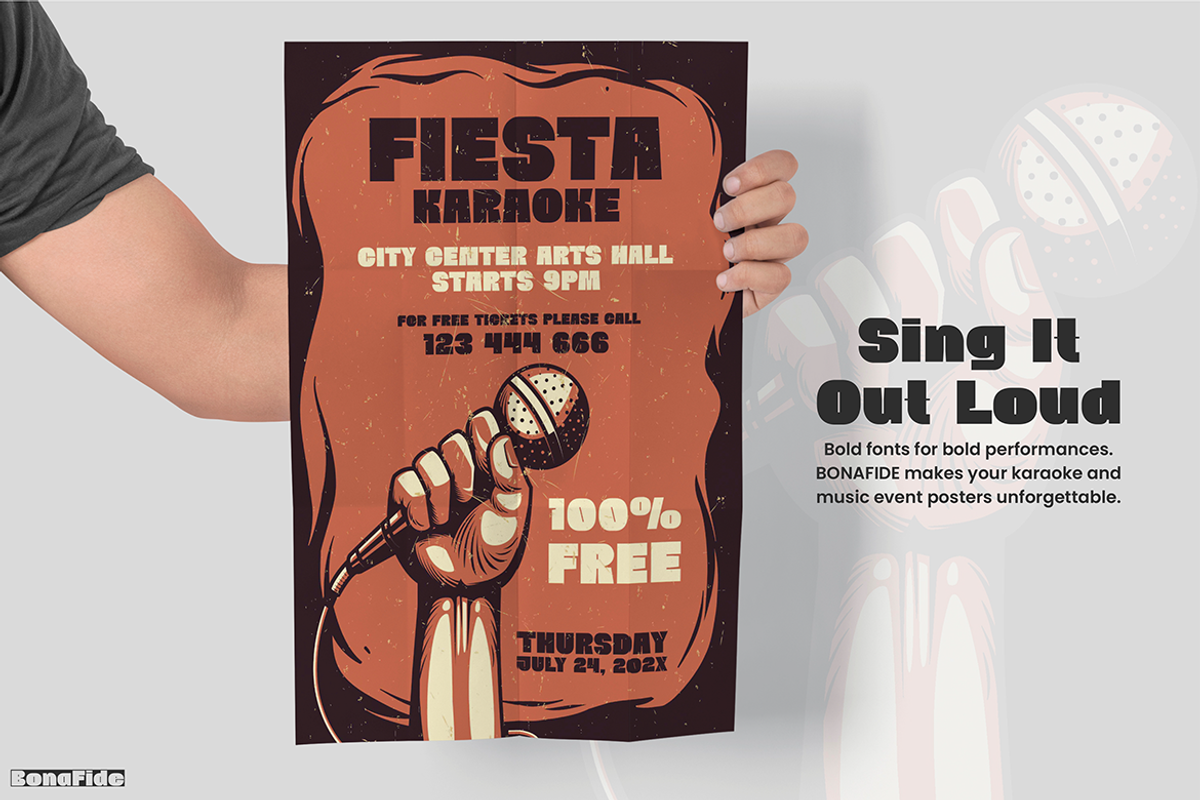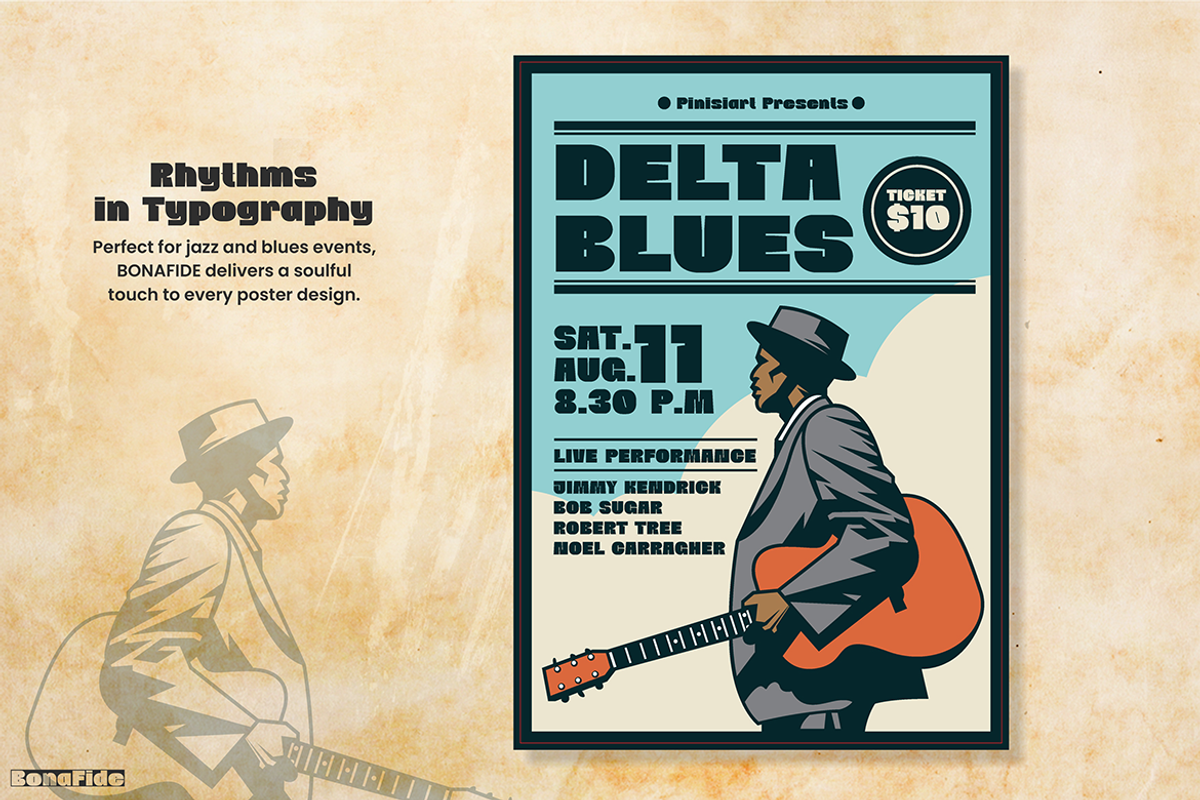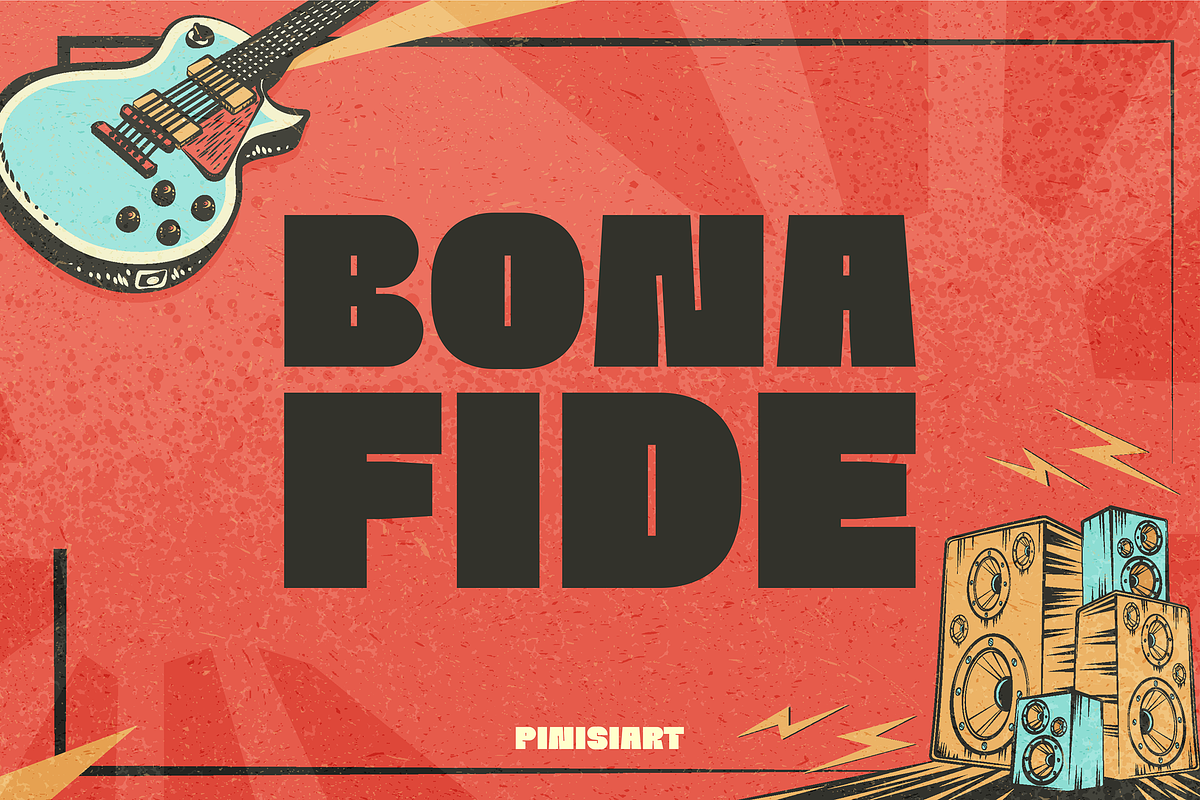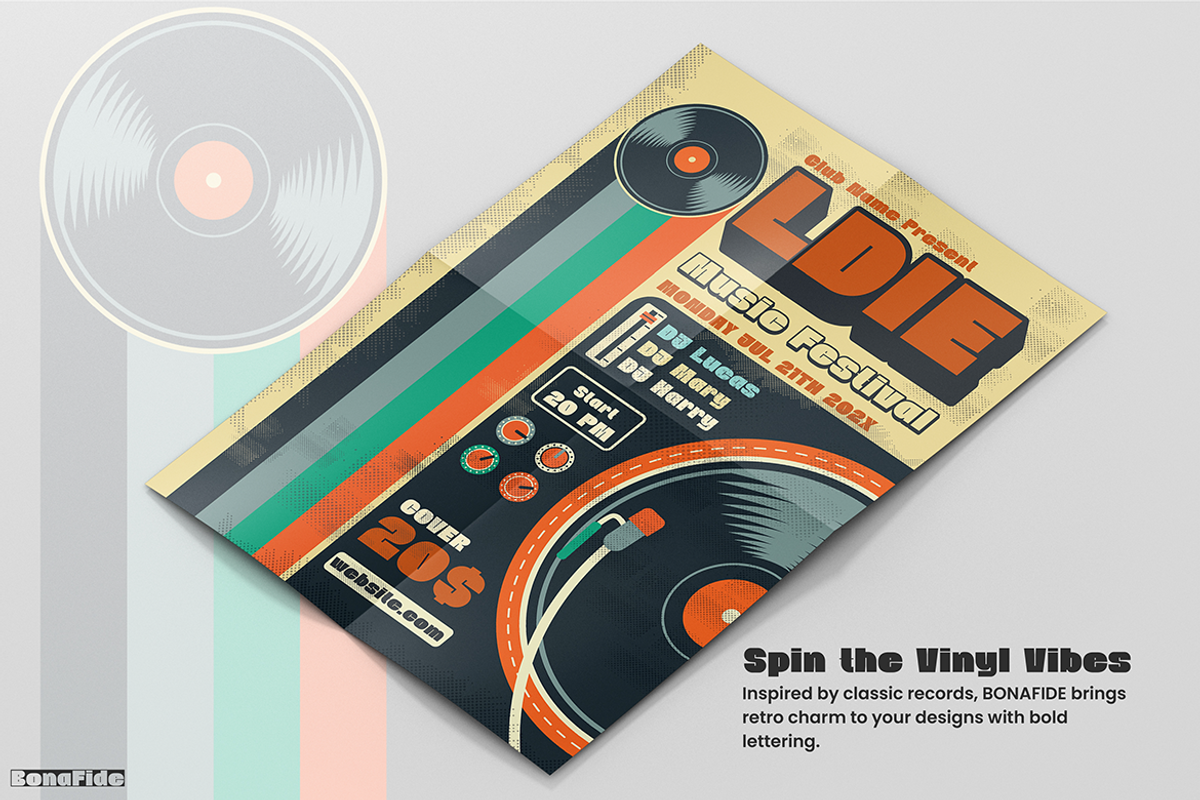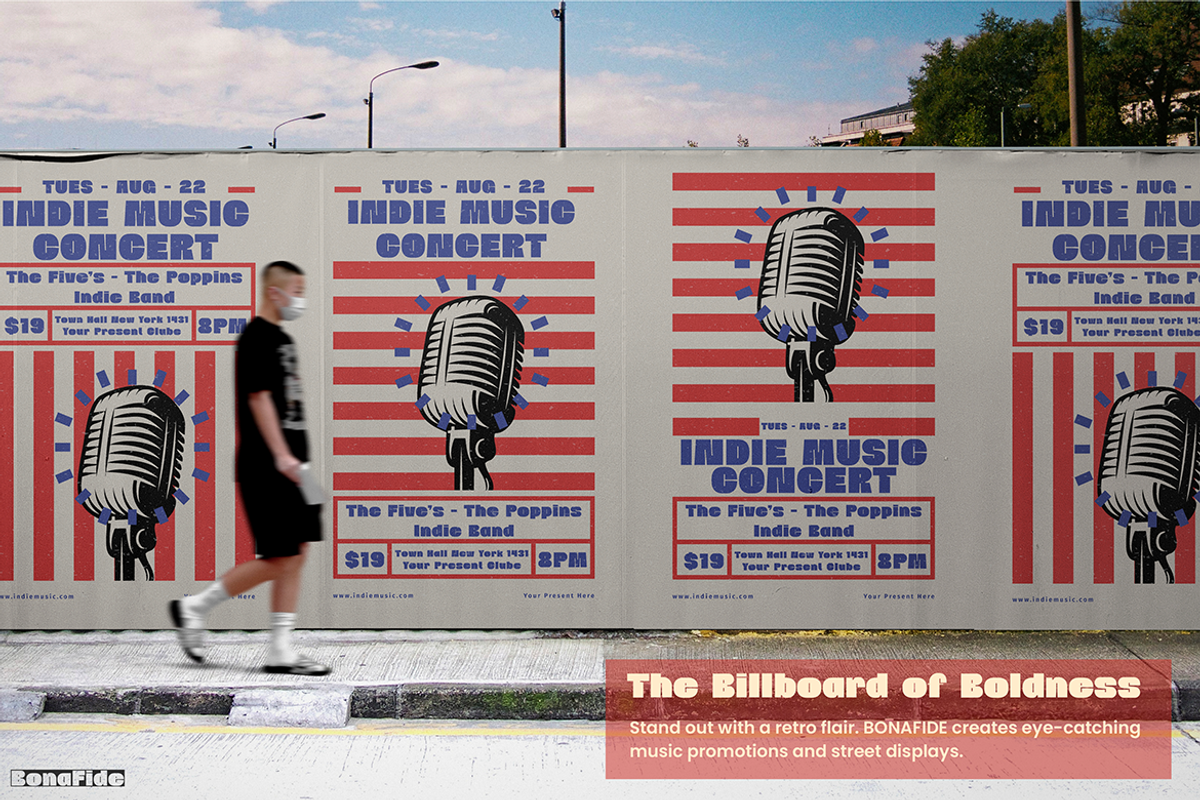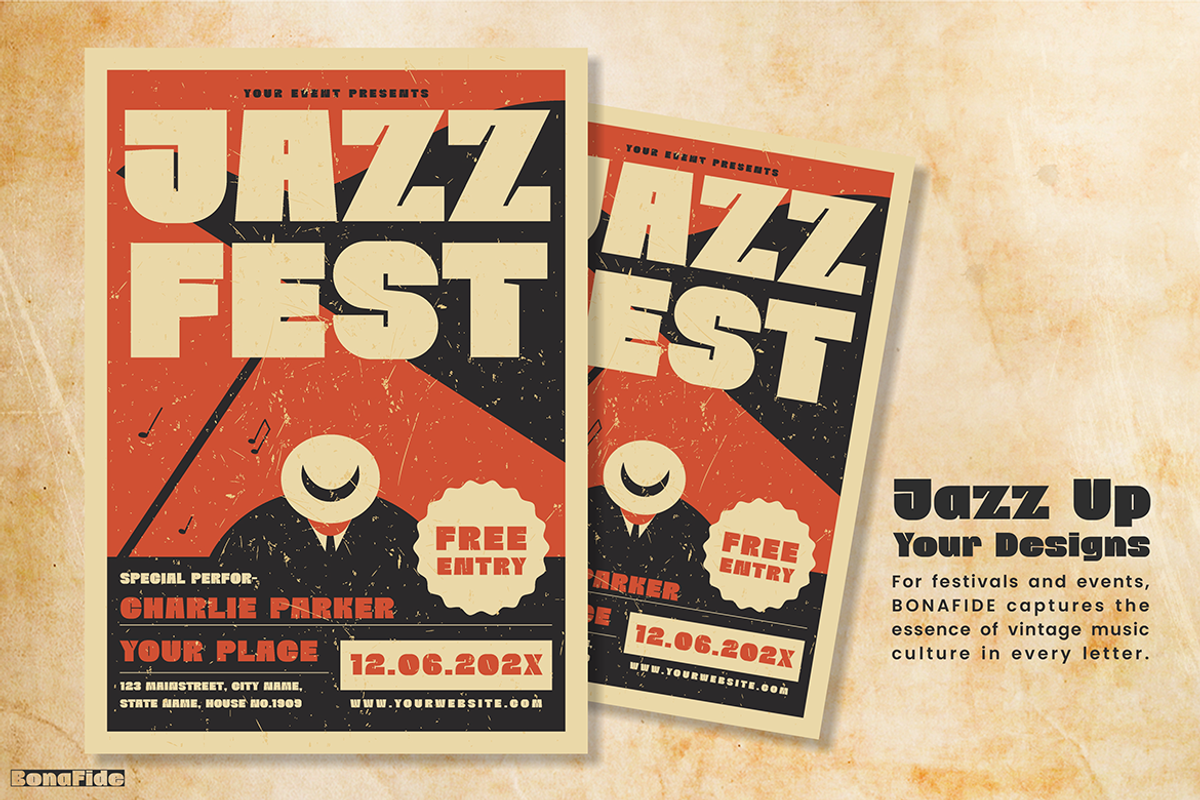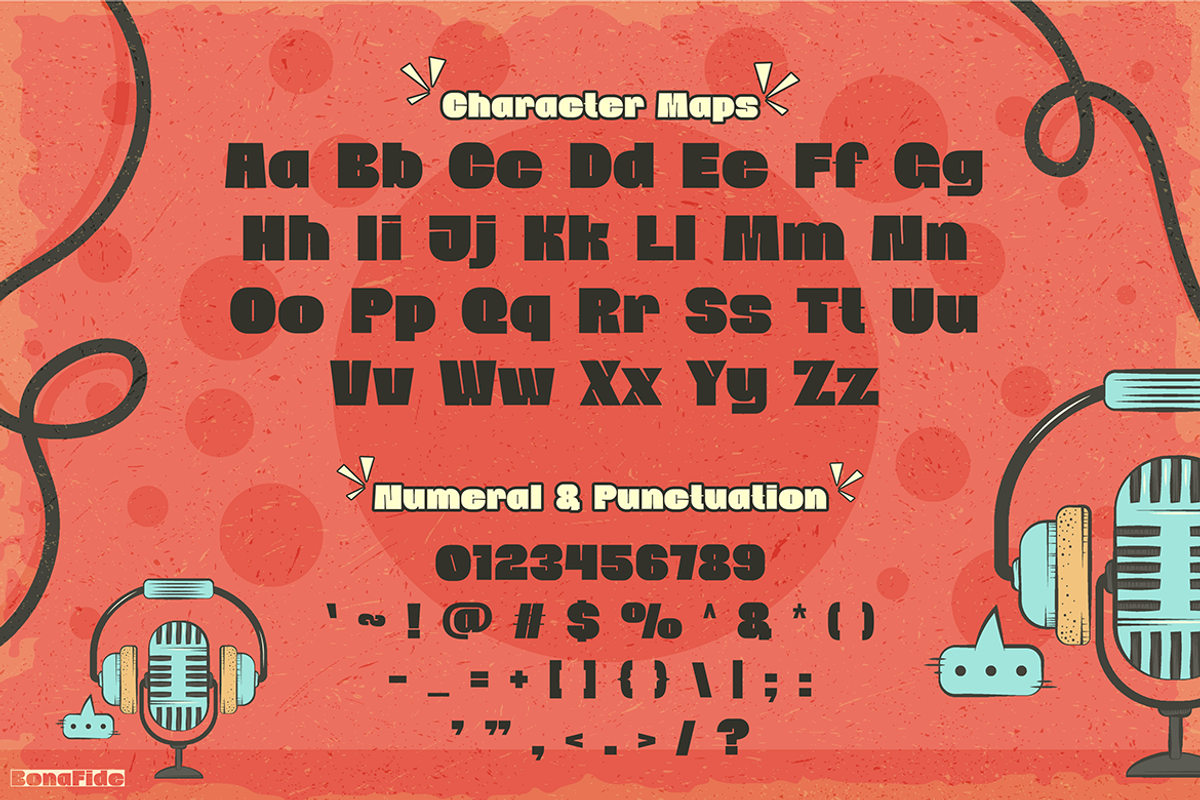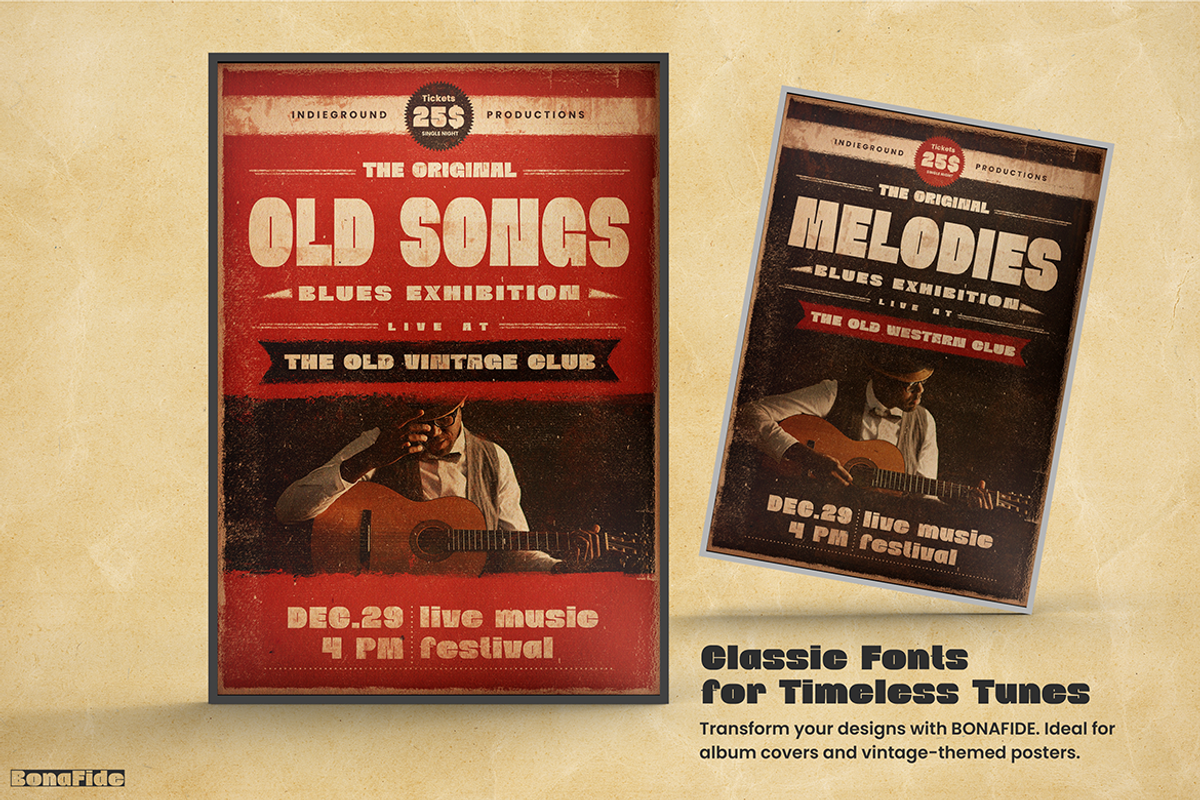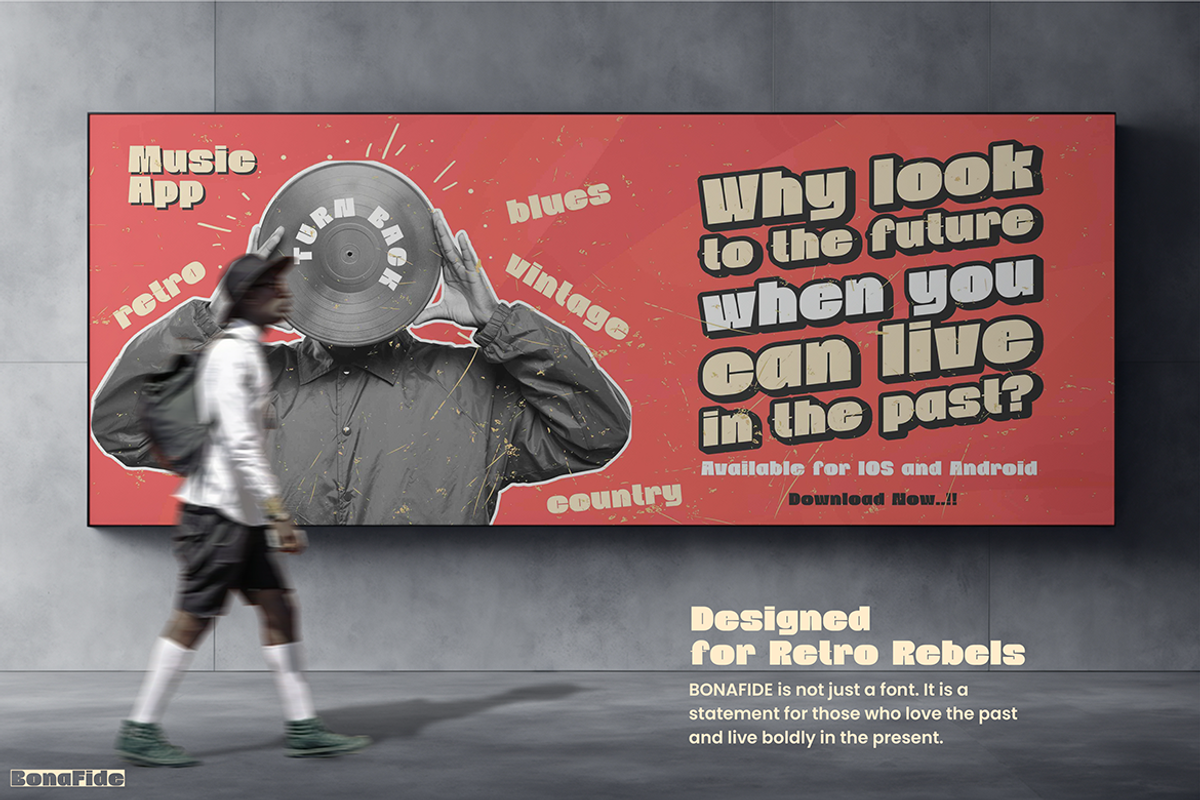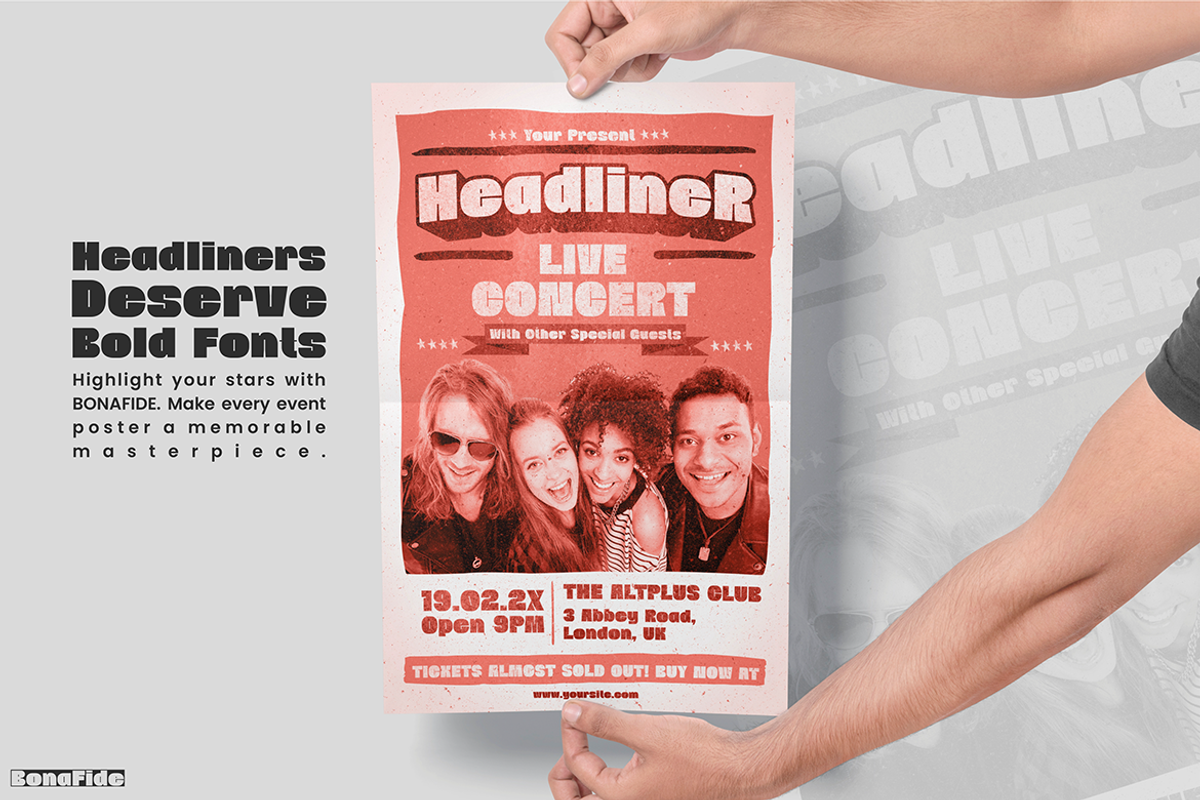
BONAFIDE
Vintage Font Bonafide is a stunning typeface that effortlessly blends nostalgia with sophistication. Its elegant curves and vintage charm make it perfect for a variety of design projects. Whether you’re creating logos, posters, or packaging, Vintage Font Bonafide offers a timeless appeal. The font’s intricate details and distressed edges add character while maintaining a polished look. Moreover, the font’s versatility allows it to fit seamlessly into both modern and retro designs.
One of the standout features of Vintage Font Bonafide is its balance of retro style and contemporary sophistication. The letterforms feature gentle curves, varying thicknesses, and unique flourishes. As a result, the font’s flow is visually pleasing, making it a strong choice for any design that seeks to evoke a sense of history and elegance. Additionally, its versatility allows it to adapt to both minimalist and more elaborate design concepts. Whether you use it for a large logo or a small label, this font is remains both functional and eye-catching.